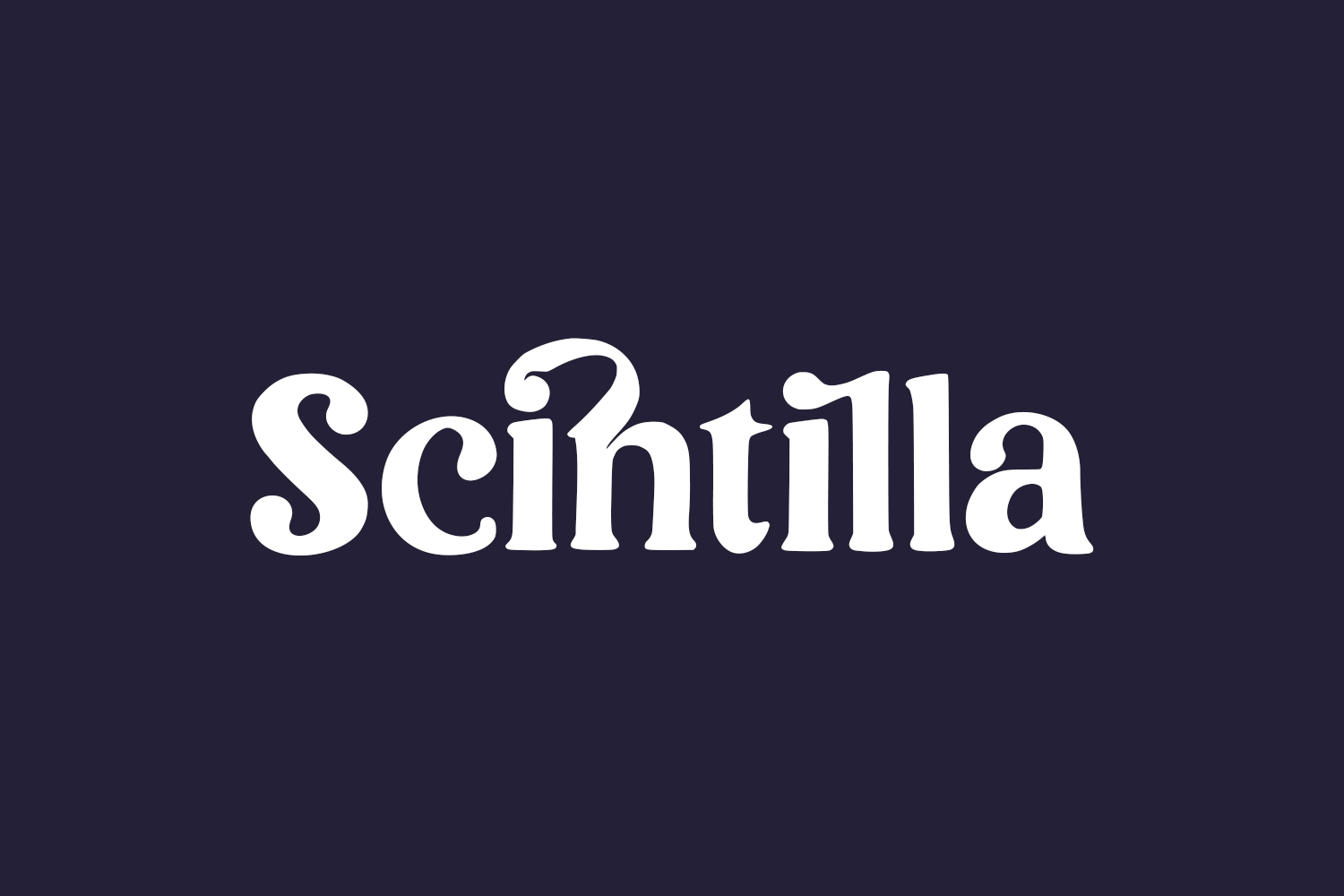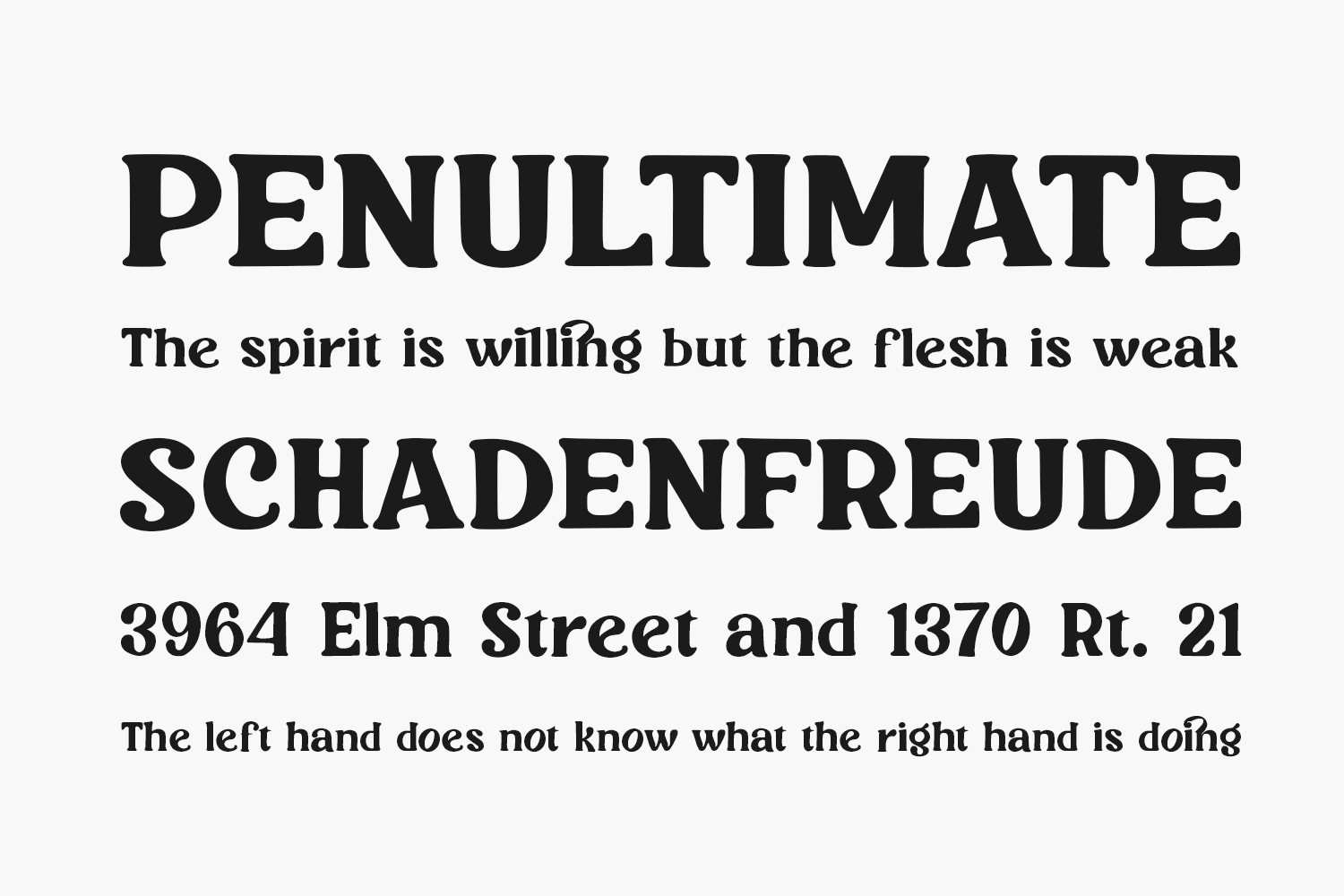
Introducing Scintilla Free Font, a contemporary serif font exuding natural and relaxed vibes. Ideal for a wide array of design endeavors including branding, logo design, lettering, clothing, posters, magazines, packaging, shopping bags, t-shirts, book covers, photography, special events, and more. Elevate your projects with its versatile charm and effortless style. Download the font for free if you need it for personal use or purchase the full version for commercial use.